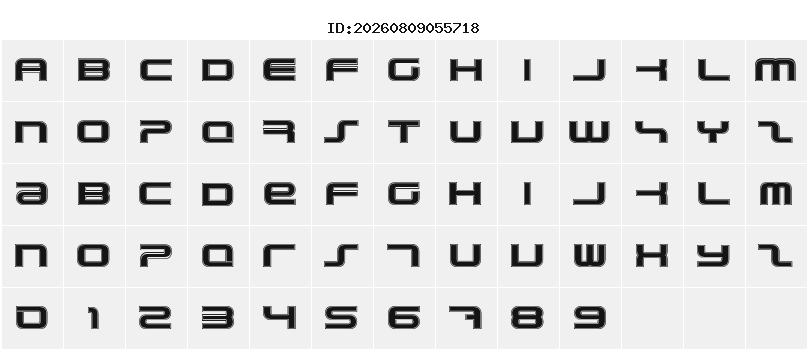
• Font Name: PhatBoy Slim
• Font Style: College
• Full Font Name: PhatBoySlim-College
• Manufacturer: TracerTong
About PhatBoy Slim.otf
PhatBoy Slim.otf is a modern, elegant sans-serif font designed for ultimate readability and visual harmony. Perfect for branding, headlines, web design, and print materials.